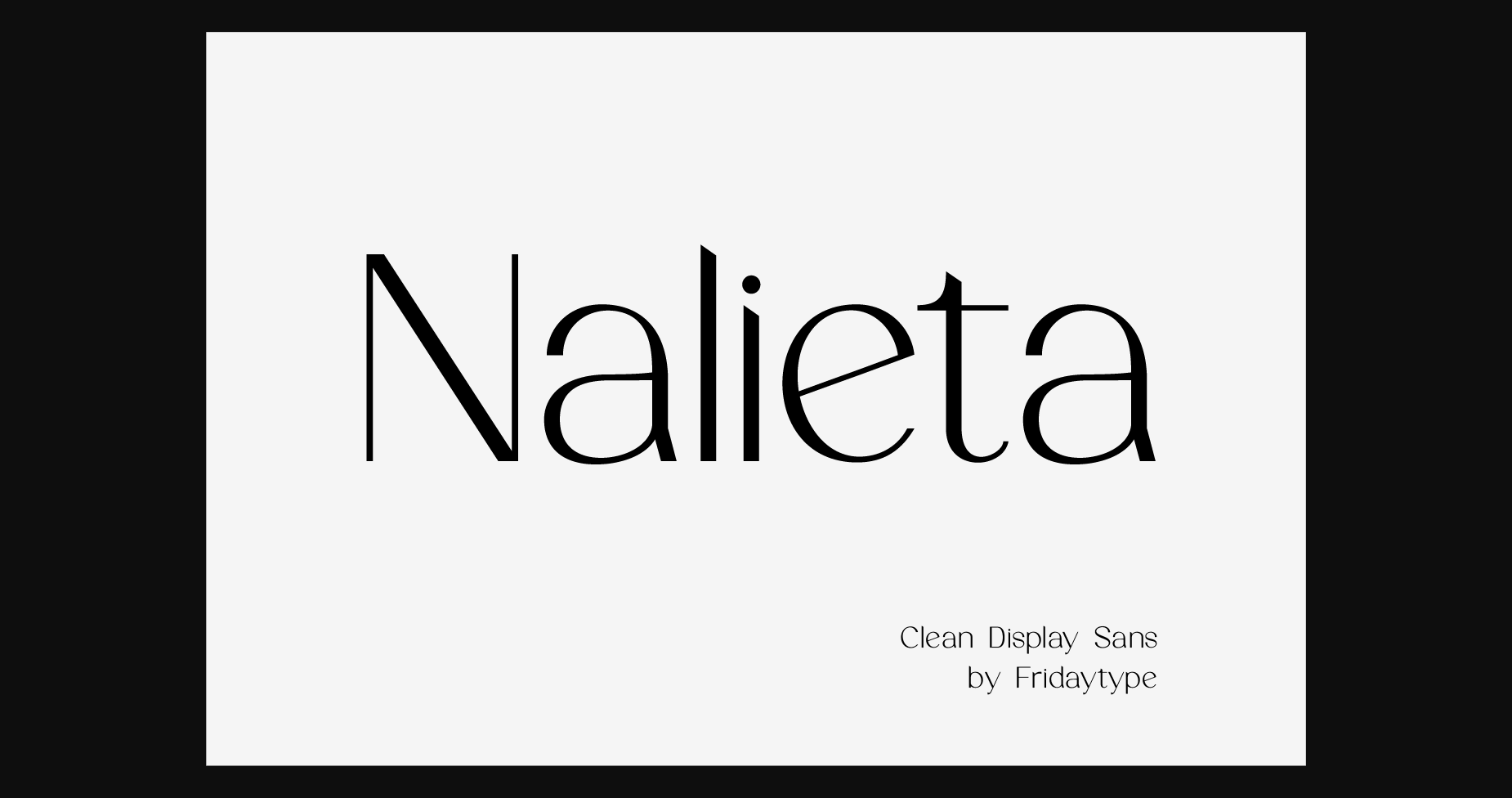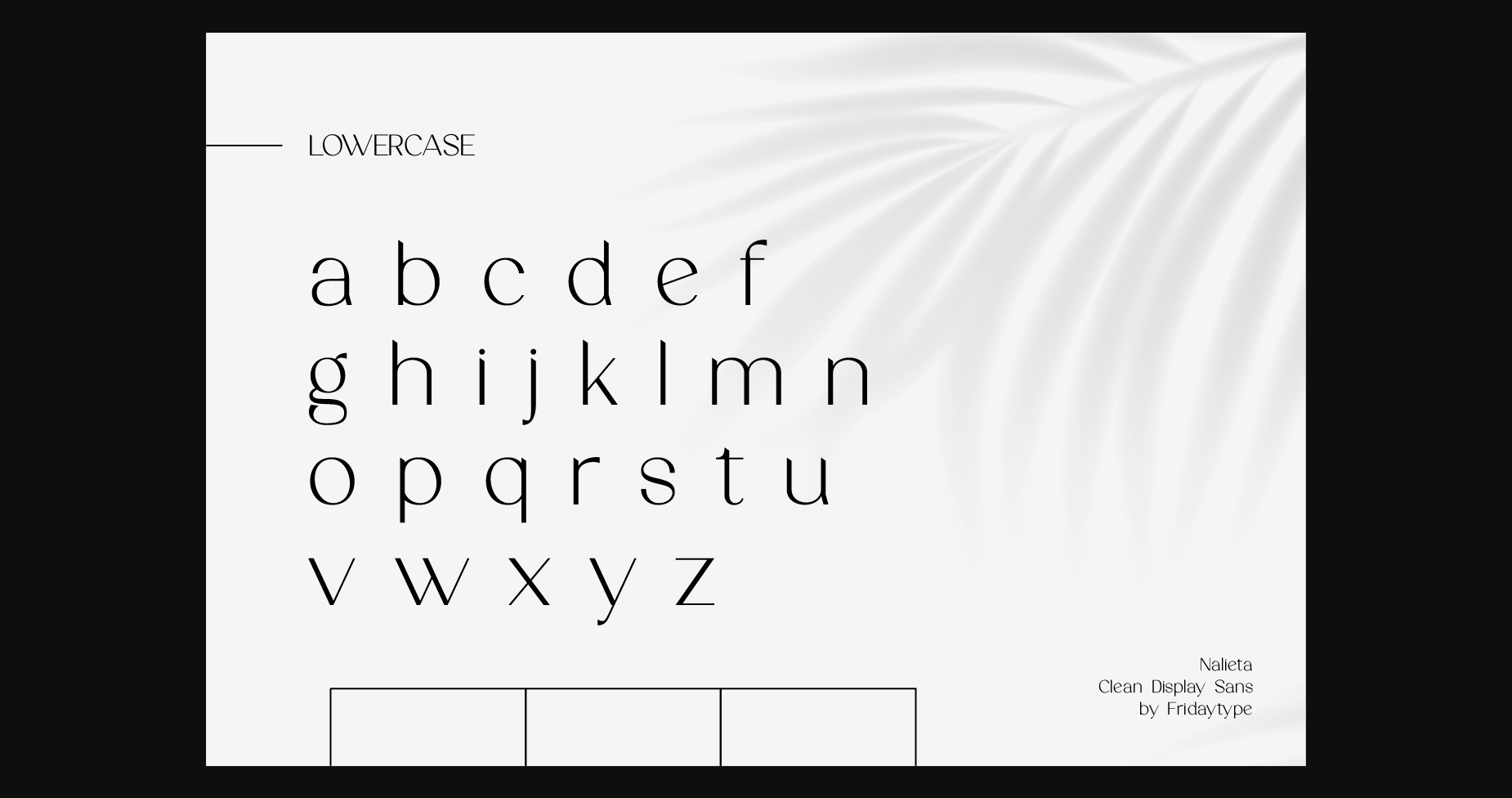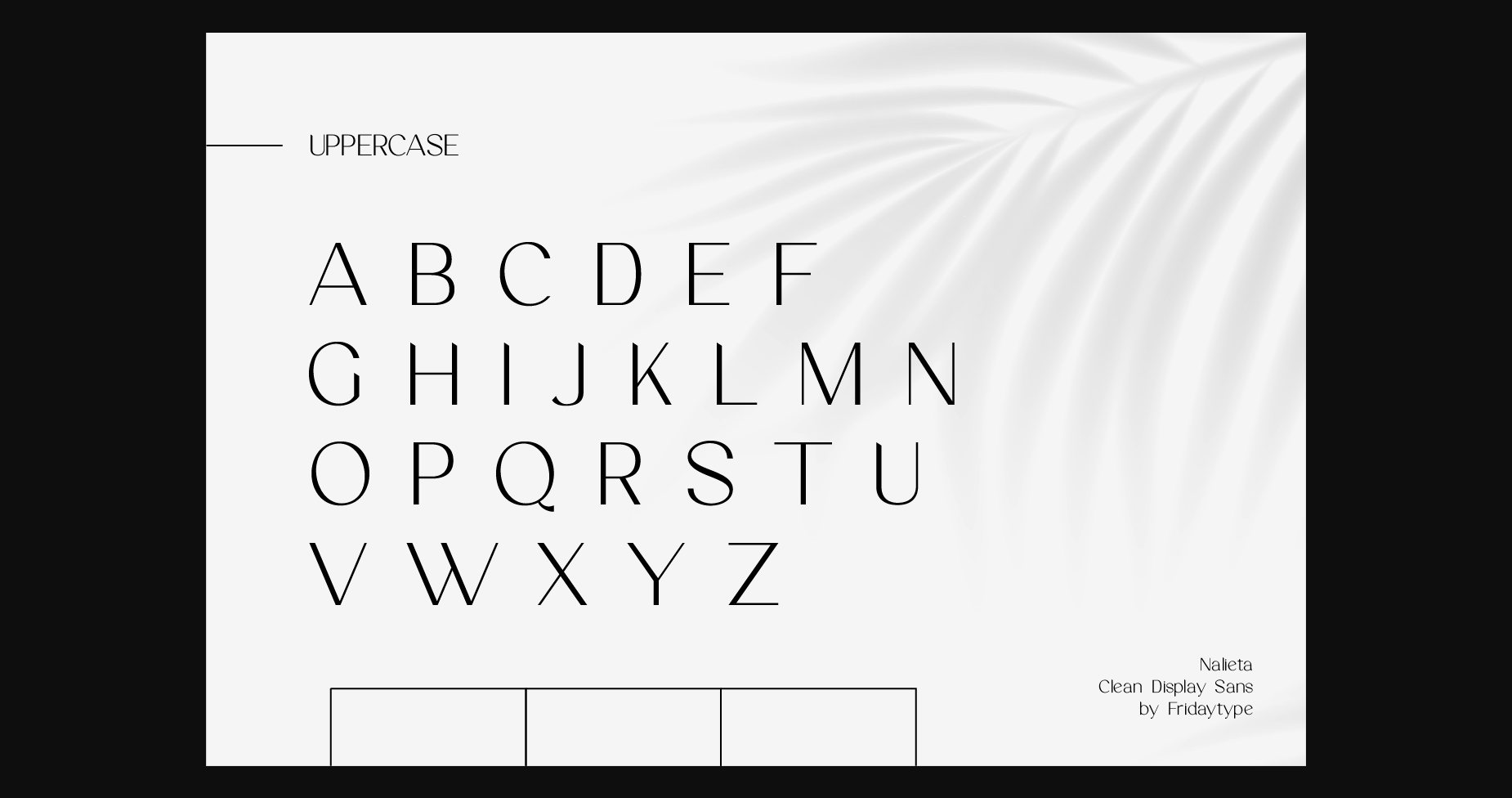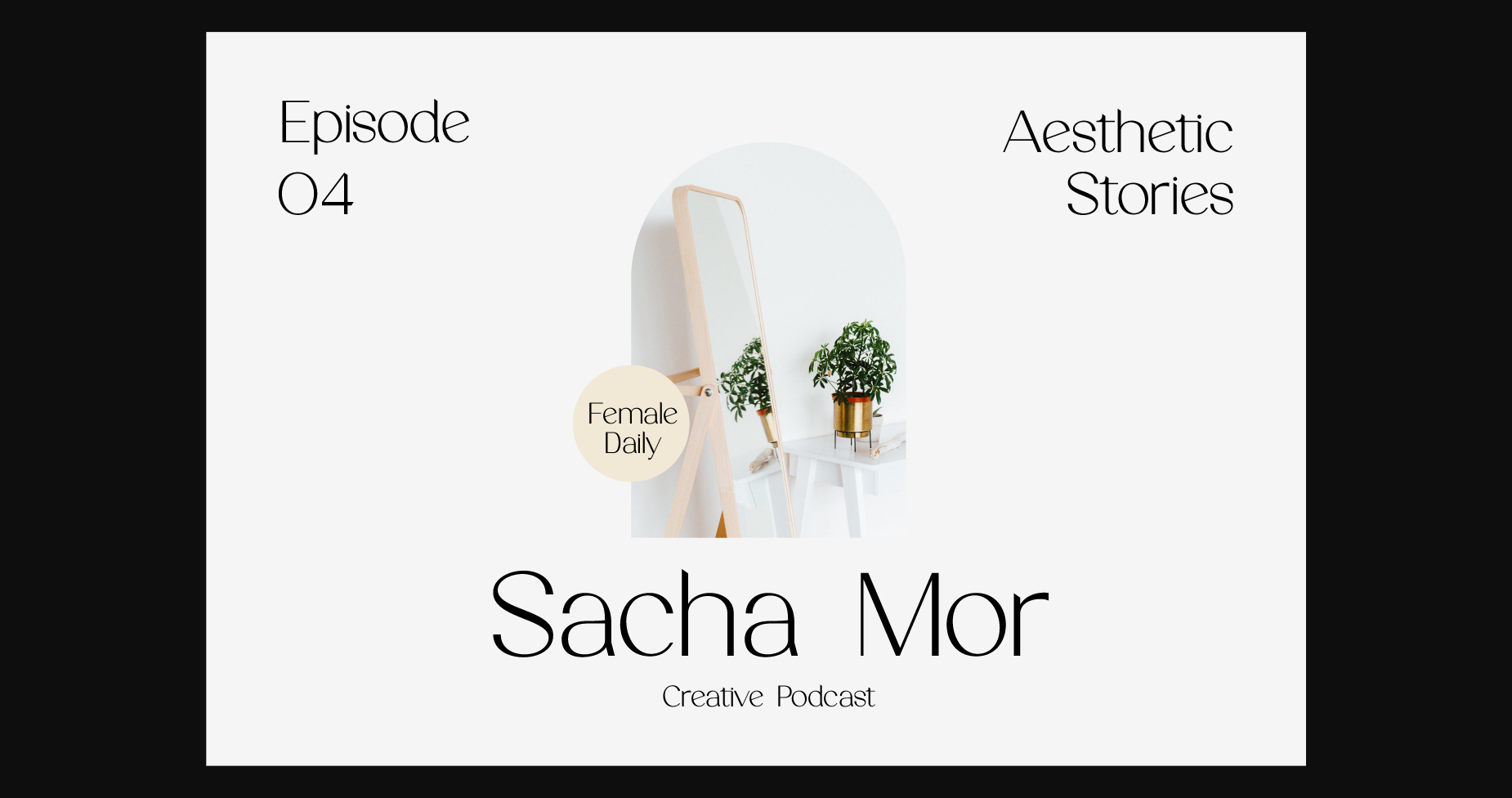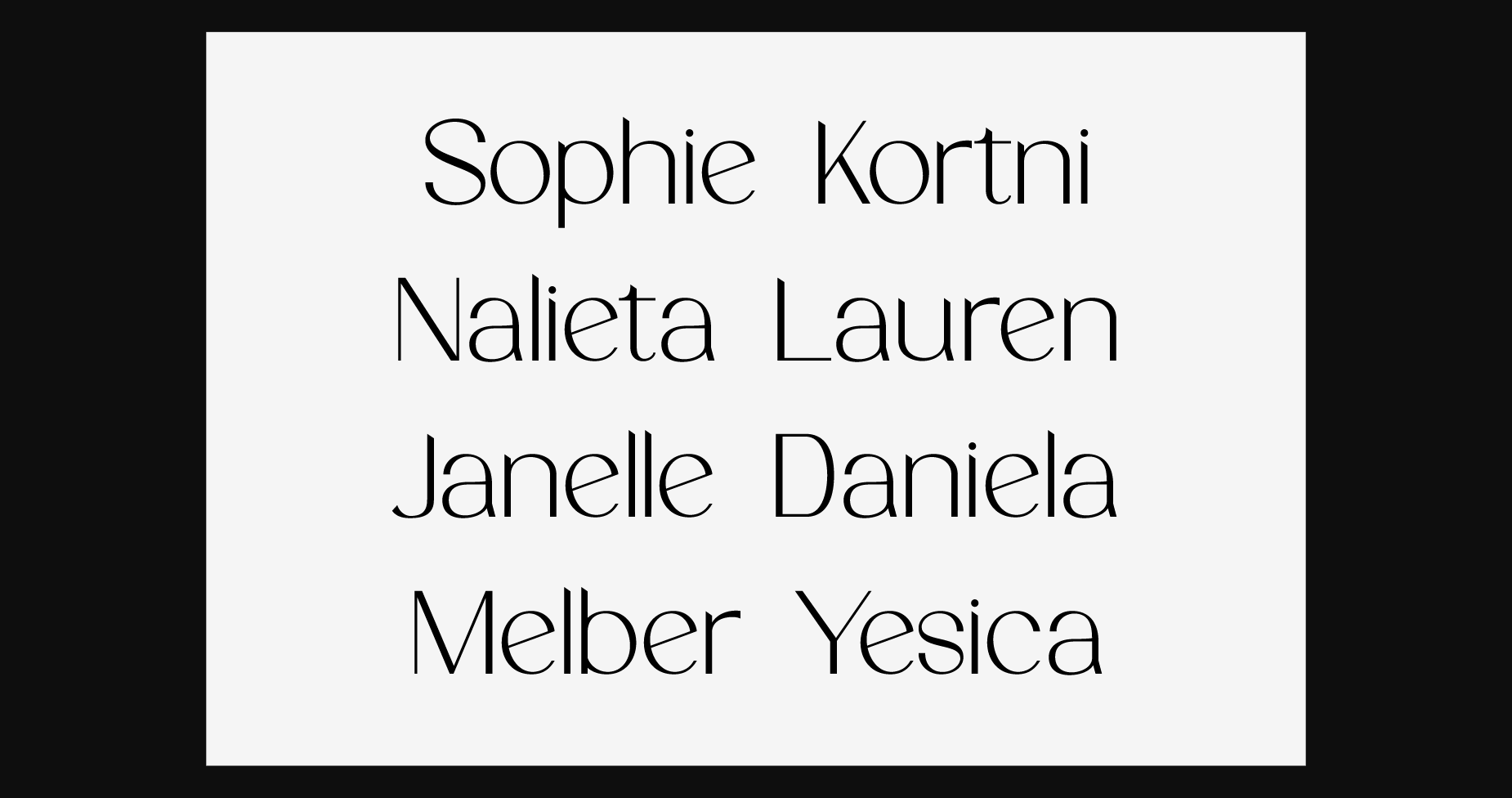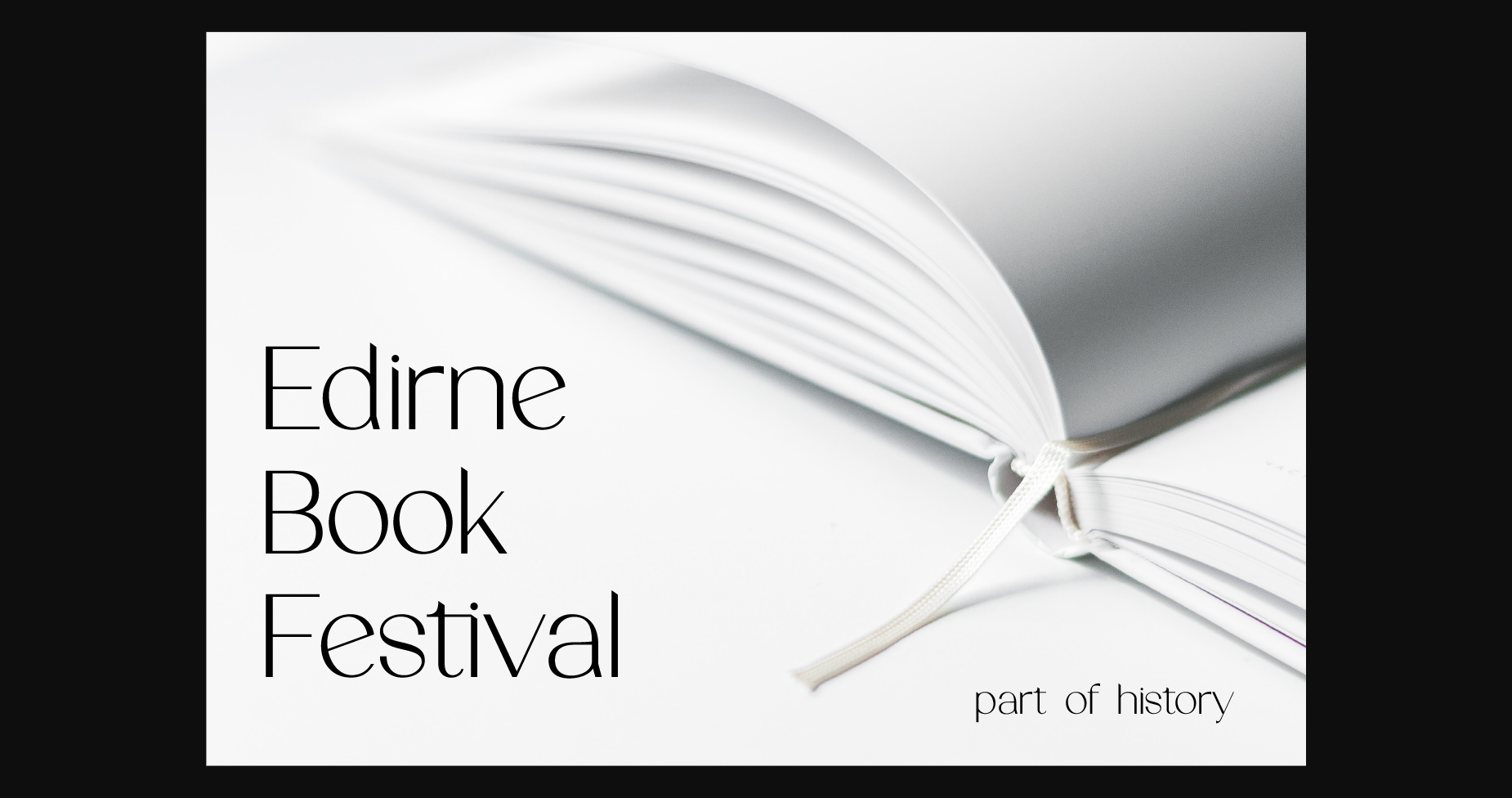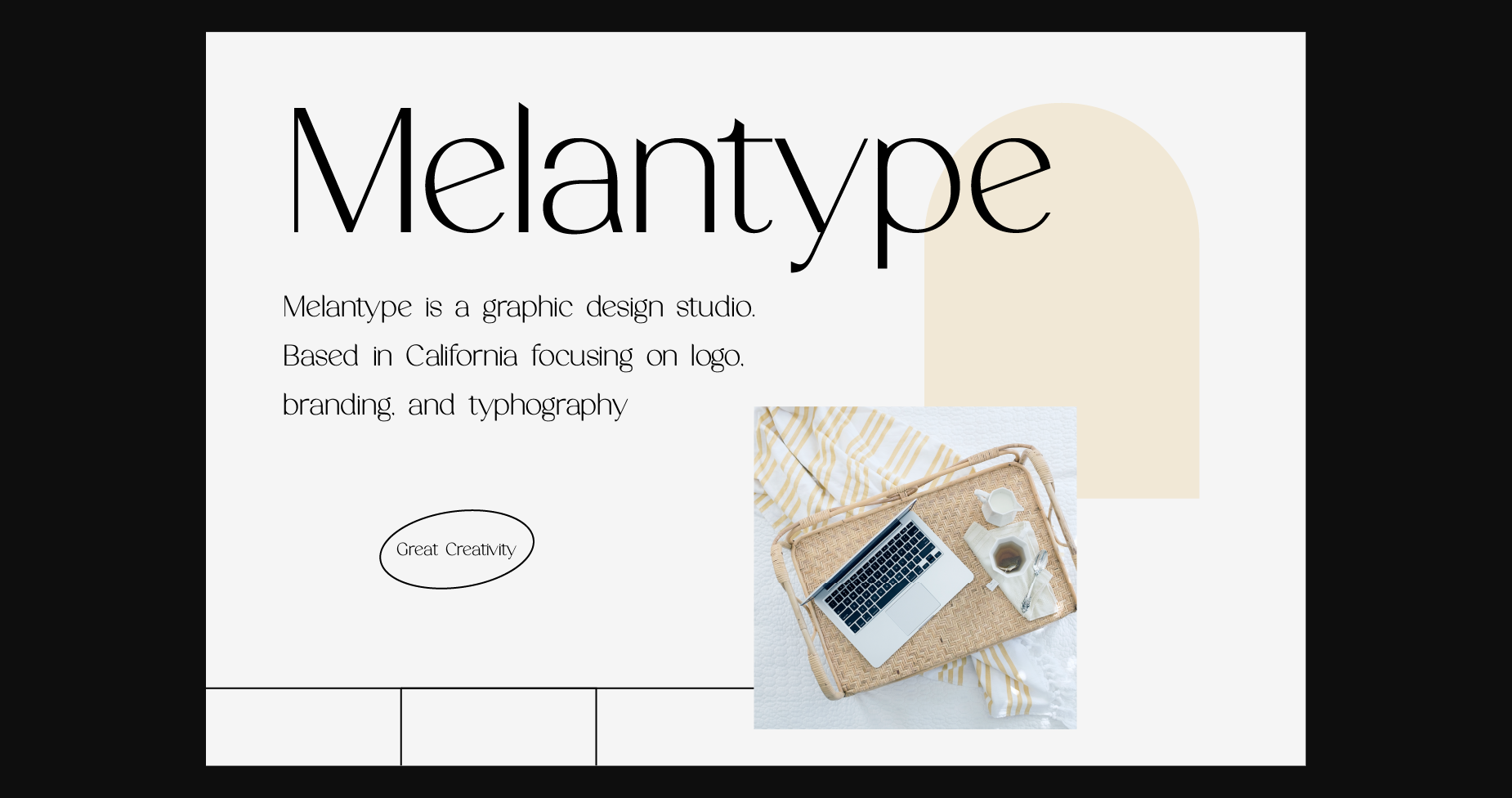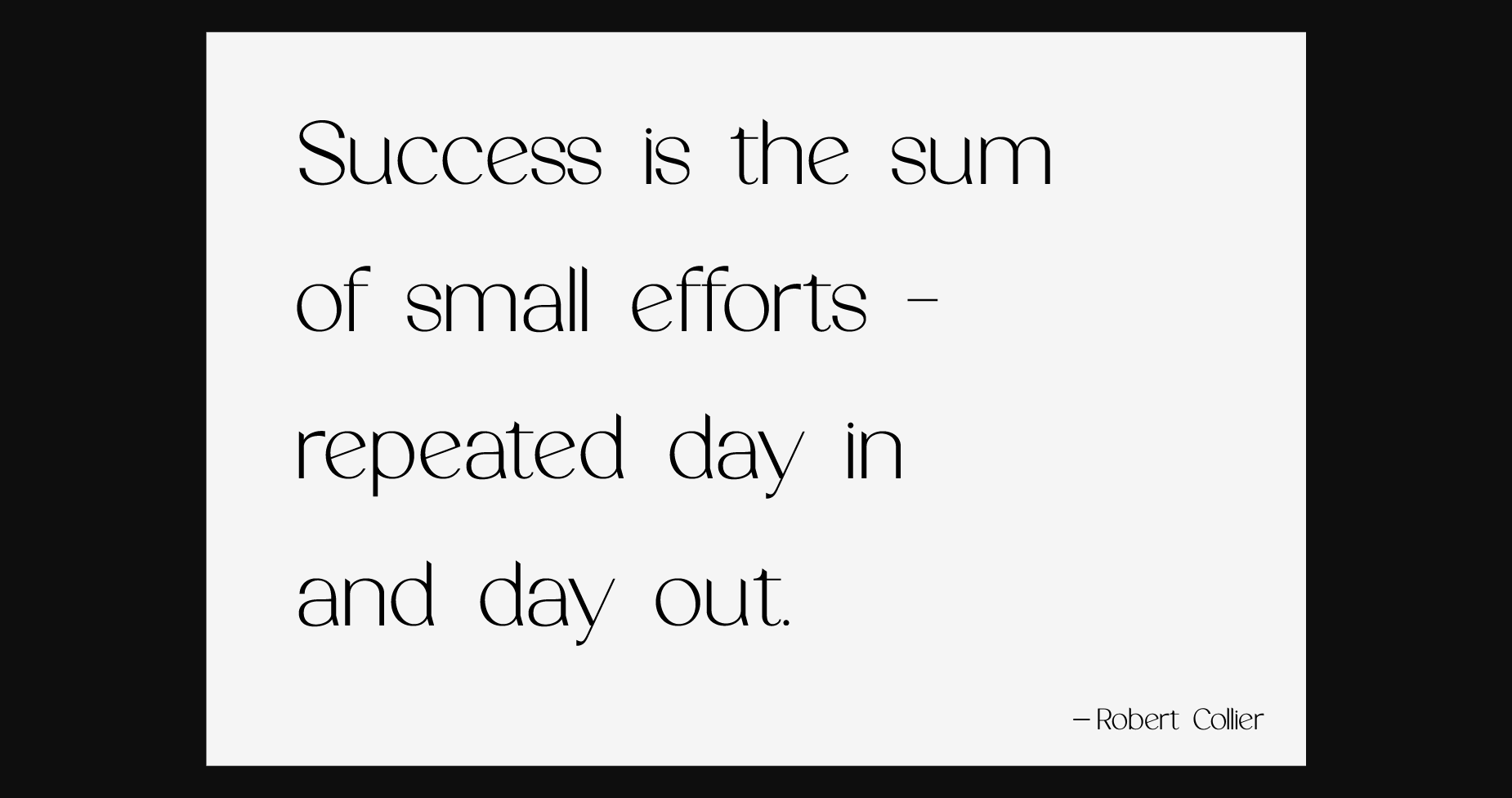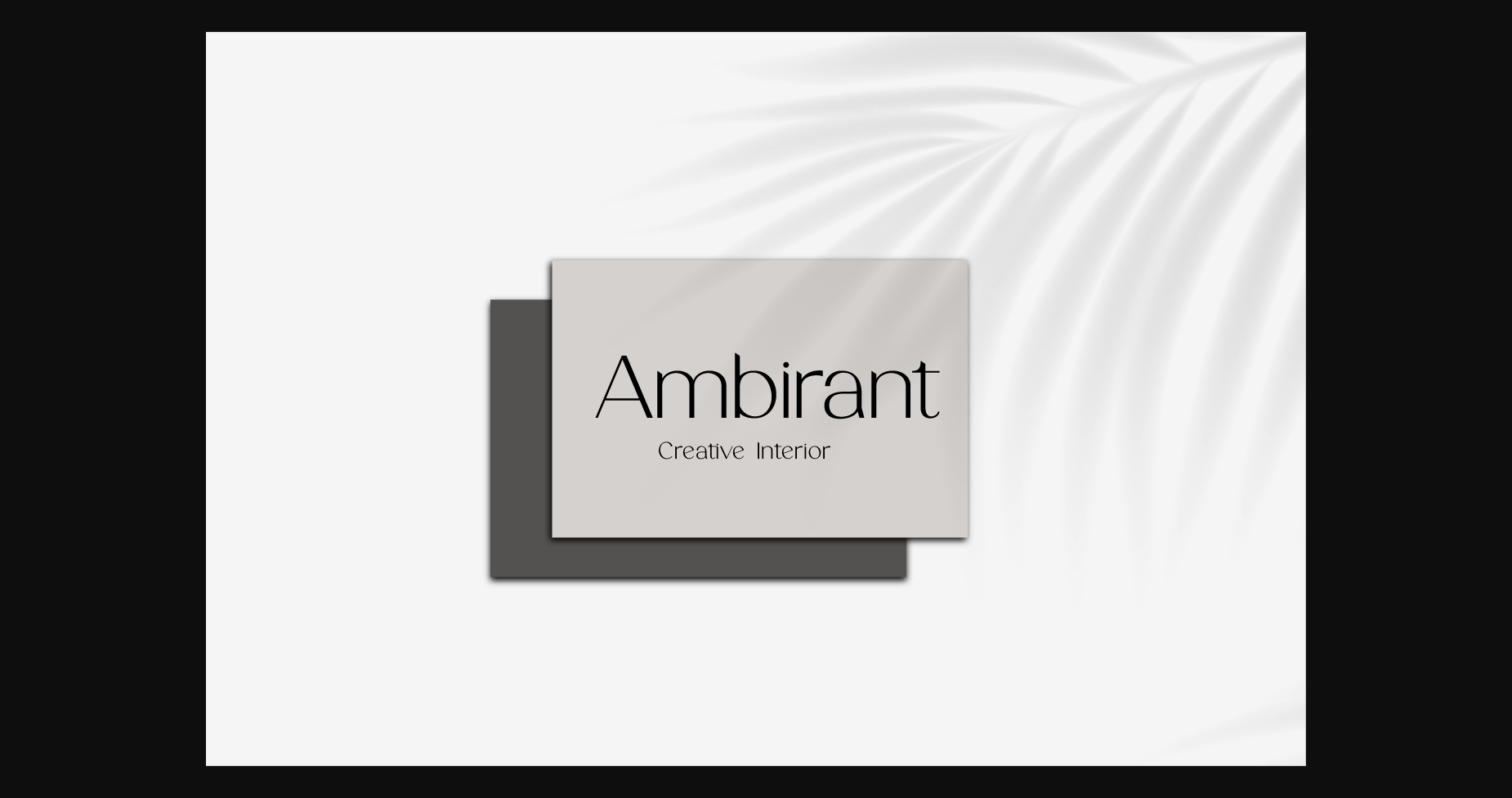
About Nalieta Font
Nalieta is an elegant, thin lettered and delicate sans serif font. It looks beautiful on a variety of designs requiring a personalized style, such as wedding invitations, thank you cards, weddings, greeting cards, logos and so on.